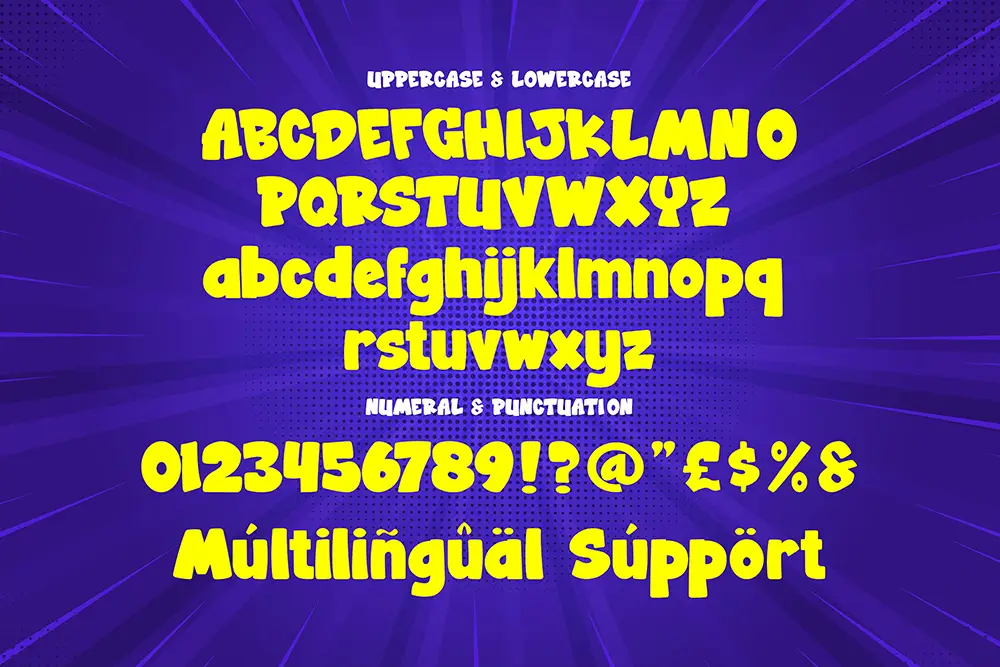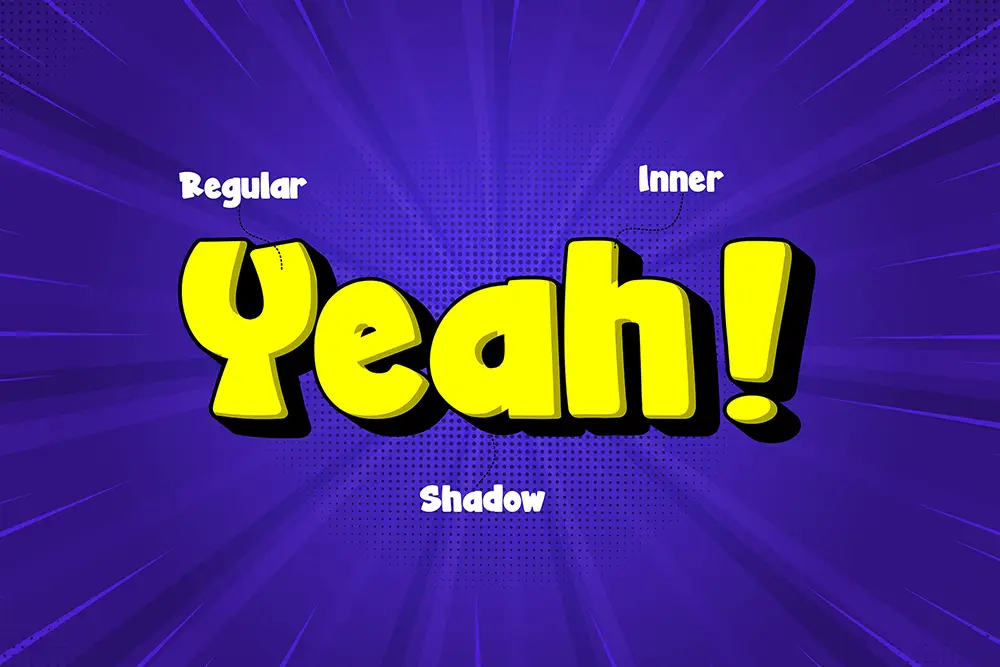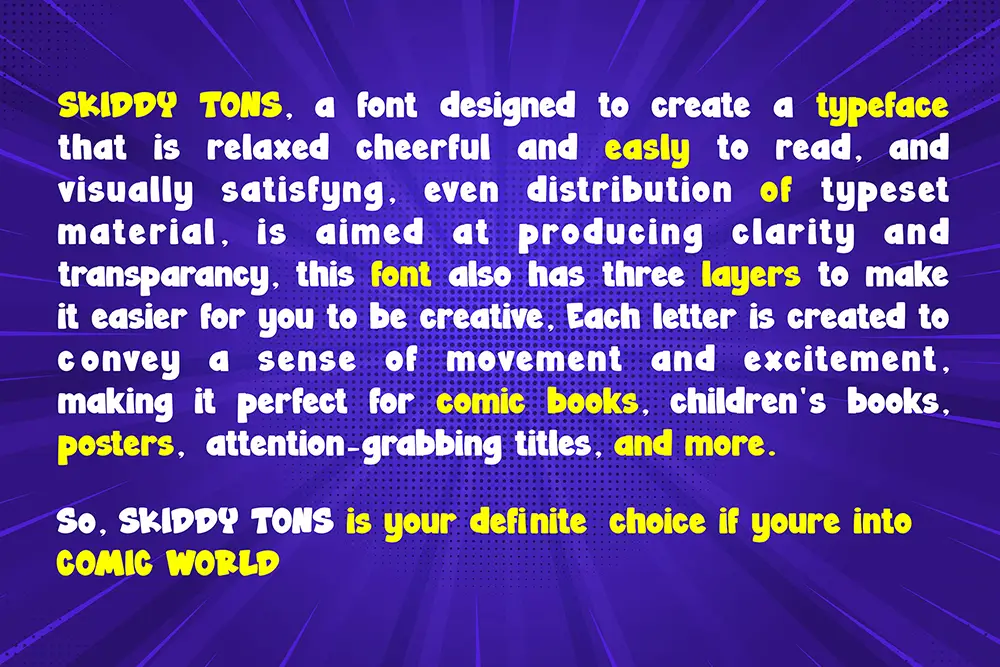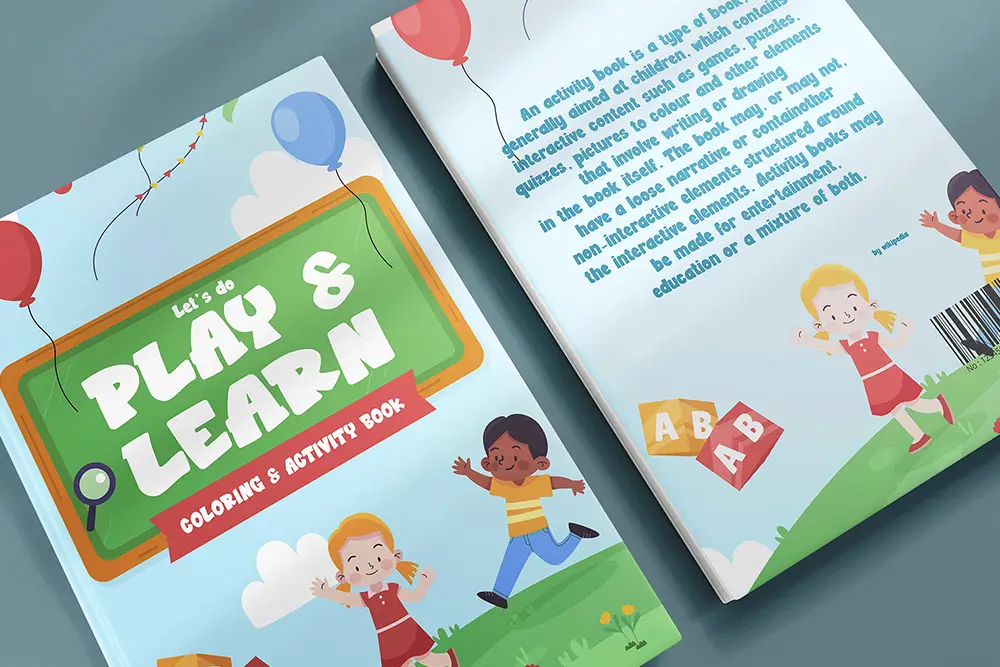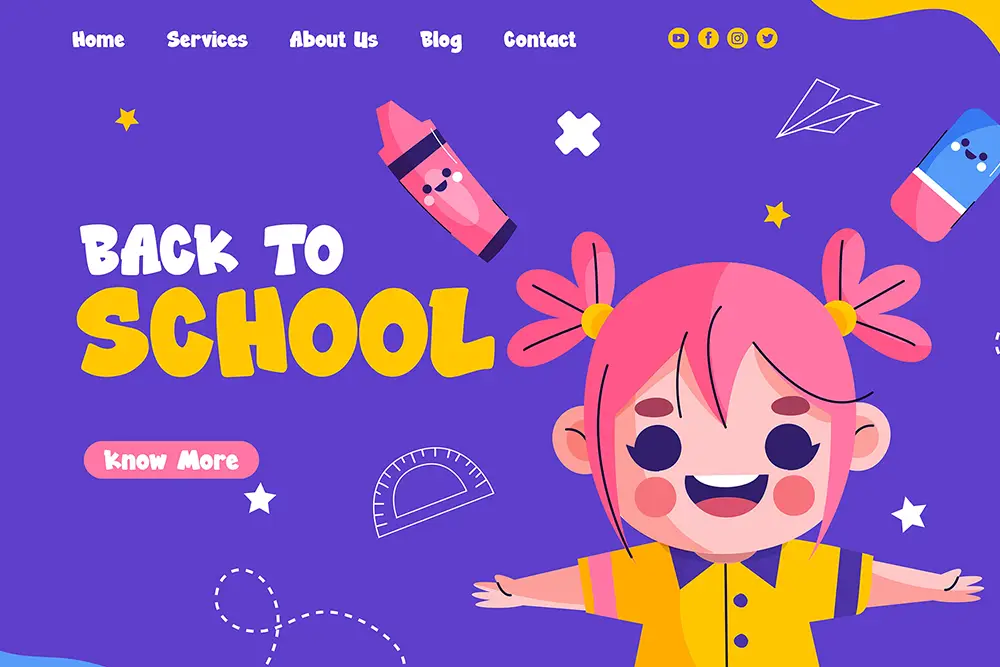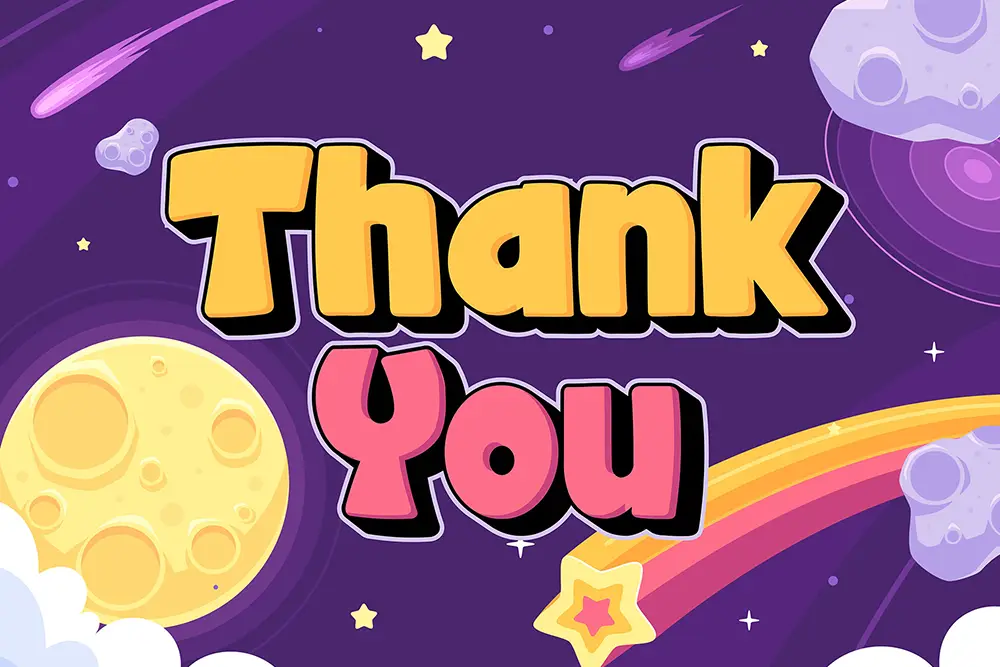
Skiddy Toons – Layered Comic Font for Playful Design
Typography is more than just letters—it’s the voice of your design. Skiddy Toons – Layered Comic Font brings a cheerful, bold, and playful personality into your creative projects. With a unique layered system including inner and shadow styles, this layered comic font is perfect for cartoon titles, children’s books, posters, logos, and playful branding.
From comic-inspired projects to fun digital content, Skiddy Toons is designed to make every headline jump off the page with energy and character.
Layered Comic Font with Playful Energy
Skiddy Toons isn’t just another display typeface. It’s a layered comic font with three complete variations—regular, inner, and shadow. This layered system allows designers to build colorful, dimensional effects that feel hand-drawn and animated.
Its bold strokes and rounded shapes instantly create a fun atmosphere. Whether you’re working on a comic strip, a kids’ YouTube channel banner, or a poster for a playful event, Skiddy Toons ensures your typography feels alive.
Key Features of Skiddy Toons – Layered Comic Font
To highlight why this typeface stands out, here are the main features of Skiddy Toons – Layered Comic Font:
- All Caps Style: Bold uppercase characters for comic-inspired typography.
- Multilingual Support: Covers extended Latin for international projects.
- Layered System: Combine regular, inner, and shadow for dimensional effects.
- Fun & Bold Design: Rounded, playful letterforms for a cartoon vibe.
- Perfect for Display: Optimized for large titles, posters, and covers.
Why Designers Love Skiddy Toons
Designers love Skiddy Toons because it combines fun with function. Many comic-style fonts look good in one setting but lack versatility. Skiddy Toons solves this by offering a layered system that expands creative freedom.
Here’s why it’s loved in the design community:
- Playful Personality: Perfect for children’s media, cartoons, and fun projects.
- Layered Flexibility: Inner and shadow layers allow unlimited creative color combinations.
- Readability: Despite its playful style, it remains legible across mediums.
- Professional Quality: Carefully kerned and designed for smooth usage.
- Font Pairing Ready: Pairs wonderfully with Bakso Tahu – Playful Handwritten Font to balance structured boldness with handwritten charm.
Skiddy Toons for Comics and Cartoons
Comics thrive on expressive visuals, and typography is central to that style. Skiddy Toons as a layered comic font perfectly captures the hand-drawn, bold lettering look found in classic cartoons and modern comic strips.
Use the shadow version for depth, or the inner version for color-fill designs. The result is authentic comic-book typography that adds joy and humor to your project.
Skiddy Toons for Posters and Fun Branding
When designing posters, visibility and energy are key. Skiddy Toons brings both. Its bold all-caps style ensures that titles are clear and impactful. Combined with shadow layers, it pops off the page and grabs attention.
This makes it an excellent choice for children’s events, family-friendly branding, and playful product packaging.
Skiddy Toons in Digital Media
Digital creators need fonts that stand out instantly. As a layered comic font, Skiddy Toons is perfect for YouTube intros, social media graphics, and streaming overlays. Its comic-inspired style creates a lighthearted, friendly tone that connects with younger audiences and fans of cartoons.
You can also combine it with Bakso Tahu for subtitles, taglines, or supporting text to build contrast while keeping the fun aesthetic.
- Character Set: All Caps, Numbers, Punctuation
- Category: Layered Comic Font
- Best Uses: Comics, Cartoons, Posters, Logos, Children’s Books, Fun Branding
Why Skiddy Toons is the Comic Font You Need
Typography can turn simple words into visual stories. Skiddy Toons captures the essence of playfulness, humor, and bold creativity. As a layered comic font, it delivers everything designers need: boldness, readability, and expressive variety.
It’s not just a cartoon font—it’s a professional tool that makes design fun again.
Skiddy Toons – Layered Comic Font is your go-to typeface for comics, cartoons, posters, and playful branding. With its layered system (regular, inner, shadow), multilingual support, and professional finish, it offers limitless design possibilities.
Bring joy and bold energy into your work with Skiddy Toons. Pair it with Bakso Tahu – Playful Handwritten Font for even more personality. Don’t just design—make your projects pop with comic charm.